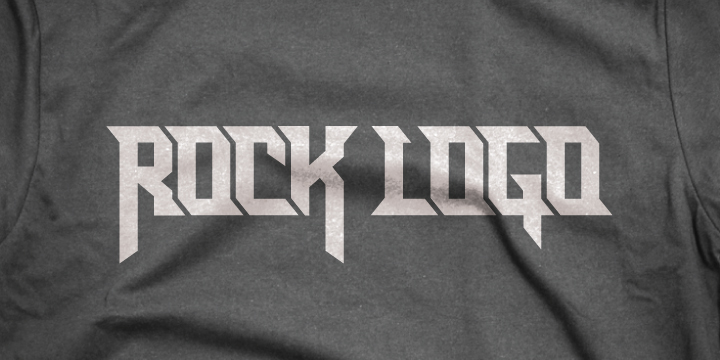
Where Can You Use Rocklogo Font?
This high-voltage font rocks in:
Band logos & merch (perfect for metal, punk, and rock bands)
Concert posters (gives that gritty, underground vibe)
Extreme sports branding (skate, motocross, MMA)
Edgy apparel prints (tees, hoodies, patches)
Why Is Rocklogo Font Exciting?
Rocklogo delivers maximum attitude with its shattered edges and anarchic style, capturing the essence of rebellious music culture. Unlike tame fonts, it's designed to be loud, proud, and impossible to ignore – just like your favorite guitar solo.
Rocklogo Font Family
The complete distortion-packed collection includes:
Rocklogo Regular (classic wrecked style)
Rocklogo Grunge (extra texture and grit)
Rocklogo Inline (hollow punk version)
Rocklogo Distressed (maximum destruction effect)